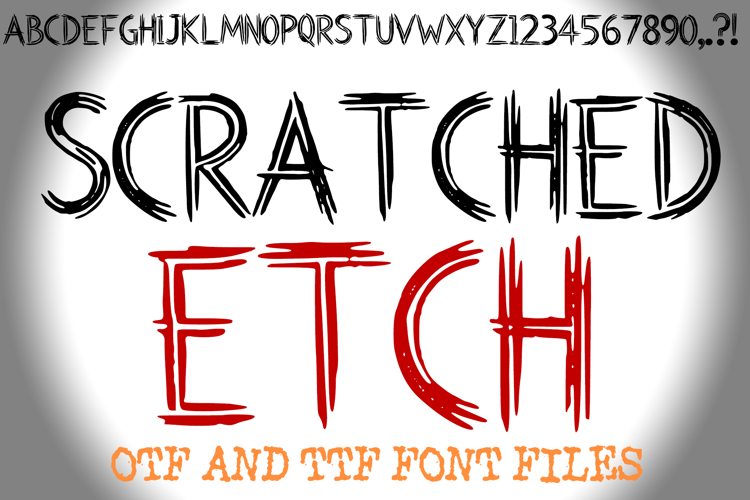
Scratched Etch Letters Alphabet ABC Text Font Hand Drawn OTF
Unleash a raw, primal energy in your designs with the Scratched Etch Font. This unique typeface is meticulously crafted to mimic the look of sharp nail scratches, claw marks, and hand-etched engravings. Each character features jagged, distressed edges and thin, frantic strokes that suggest a sense of urgency, mystery, or wild nature.
The font is characterized by its high-contrast, "scritch-scratch" texture, making it an ideal choice for horror-themed posters, edgy streetwear branding, heavy metal album covers, or survival-themed game interfaces. Whether you are looking to create a look of frantic desperation or predatory power, Scratched Etch provides a visceral, tactile aesthetic that stands out from standard digital typefaces.